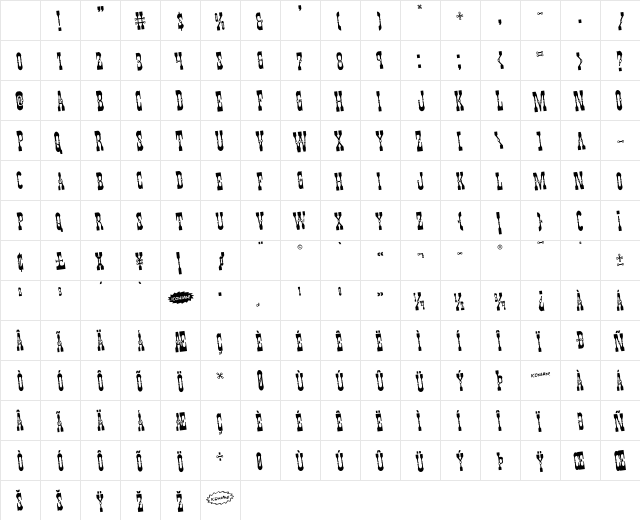
Younger Brothers Rotated Regular
Design Context for Younger Brothers Rotated
Younger Brothers Rotated is a composed and adaptable typeface that performs quietly and consistently across a wide range of design contexts.
Pro Tip: Use Younger Brothers Rotated in both headline and body roles to test its range before committing to a single application.